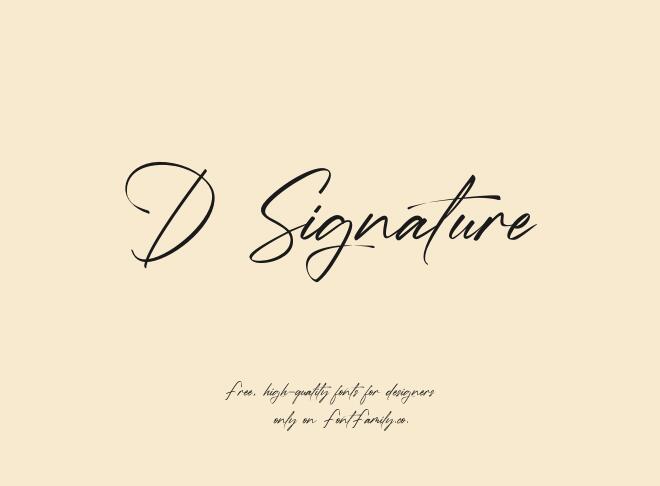
D Signature Font
Introducing the D Signature Font - a modern, elegant, and handwritten script font that adds a sophisticated touch to any design project. With its fluid and organic letterforms, this font closely mimics natural handwriting, providing a personal and intimate feel to your work. It is an ideal choice for branding, wedding invitations, book covers, stationery, marketing, magazines and more. The D Signature Font stands out in the crowd of handwritten fonts due to its unique style and versatility. It effortlessly pairs with other fonts and shines in both digital and print formats. Offering a free download, this font is a must-have tool for designers aiming to elevate their designs with a touch of elegance and personalization.